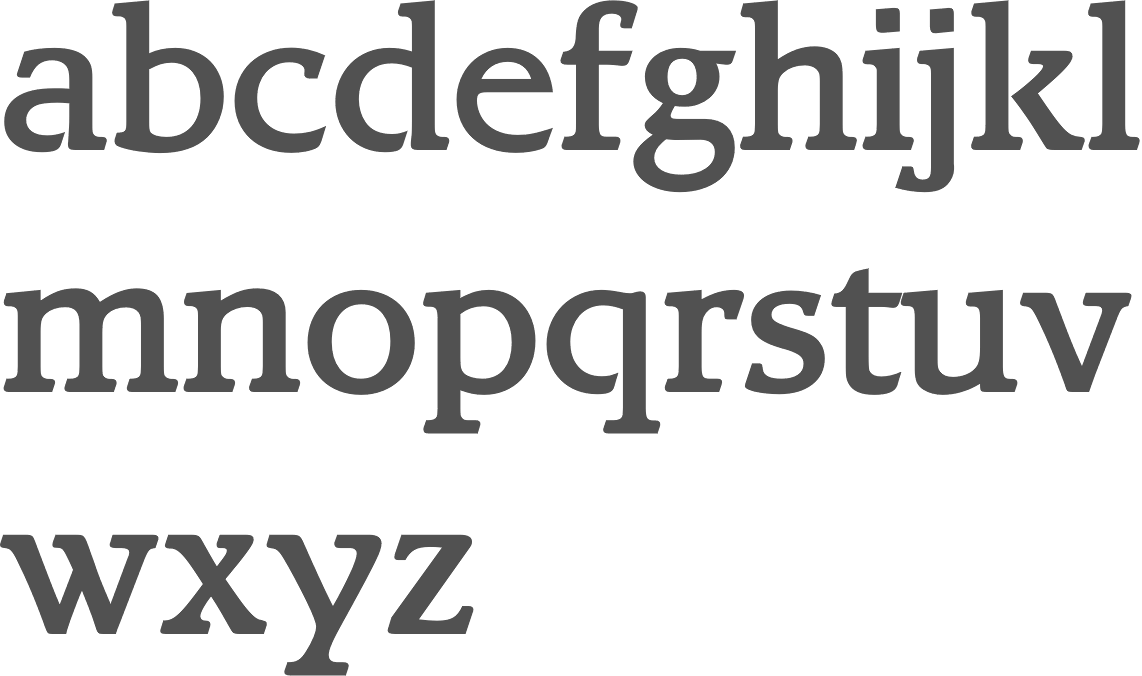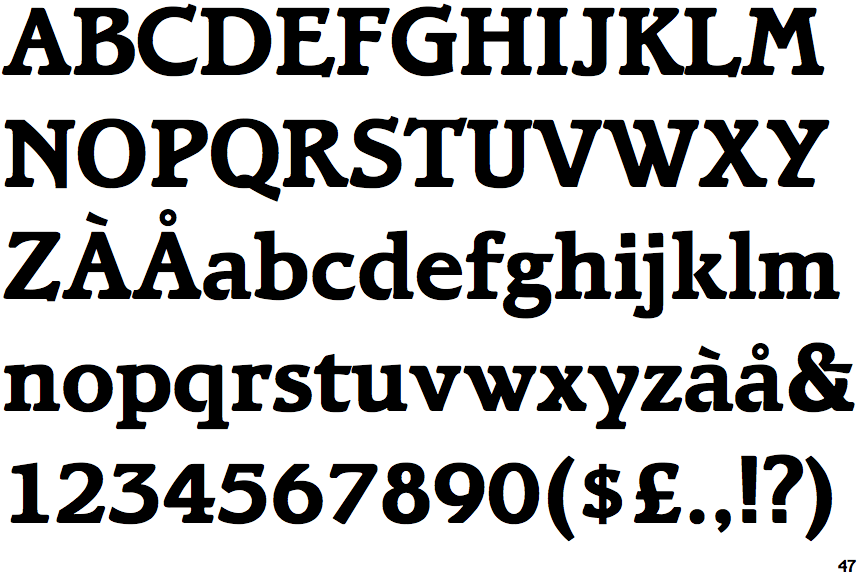
Bramley Font . Letraset bramley font, this bundle features strong,. Bramley is a modern slab serif typeface designed by alan meeks. $126.99 usd letraset bramley std extra. The bramley std medium font was designed by alan meeks. Letraset bramley std extra bold byitc. Bramley sh contains 4 styles and family. Complete family of 4 fonts: You can also visit the author website, clicking here: Download bramley std for free, view sample text, rating and more on fontsgeek.com View sample text, character map, user rating and review for. Bramley has carefully angled serifs to. Bramley sh font family was designed by alan meeks and published by scangraphic digital type collection. Complete family of 4 fonts:
You can also visit the author website, clicking here: The bramley std medium font was designed by alan meeks. Download bramley std for free, view sample text, rating and more on fontsgeek.com Letraset bramley font, this bundle features strong,. Bramley has carefully angled serifs to. Complete family of 4 fonts: Bramley sh font family was designed by alan meeks and published by scangraphic digital type collection. $126.99 usd letraset bramley std extra. Bramley is a modern slab serif typeface designed by alan meeks. Letraset bramley std extra bold byitc.
Bramley Font Bramley sh contains 4 styles and family. The bramley std medium font was designed by alan meeks. Complete family of 4 fonts: Letraset bramley font, this bundle features strong,. Bramley sh font family was designed by alan meeks and published by scangraphic digital type collection. Bramley is a modern slab serif typeface designed by alan meeks. Bramley has carefully angled serifs to. You can also visit the author website, clicking here: Letraset bramley std extra bold byitc. $126.99 usd letraset bramley std extra. Download bramley std for free, view sample text, rating and more on fontsgeek.com Complete family of 4 fonts: View sample text, character map, user rating and review for. Bramley sh contains 4 styles and family.
Retro fonts to take your design to the next level Graphic design fonts, Retro graphic design Bramley Font The bramley std medium font was designed by alan meeks. Bramley sh font family was designed by alan meeks and published by scangraphic digital type collection. Download bramley std for free, view sample text, rating and more on fontsgeek.com Complete family of 4 fonts: Bramley has carefully angled serifs to. $126.99 usd letraset bramley std extra. Letraset bramley font, this. Bramley Font.
Bramley Extra Bold Fonts Bramley Font You can also visit the author website, clicking here: Complete family of 4 fonts: Bramley sh font family was designed by alan meeks and published by scangraphic digital type collection. Letraset bramley font, this bundle features strong,. Complete family of 4 fonts: View sample text, character map, user rating and review for. $126.99 usd letraset bramley std extra. Letraset bramley. Bramley Font.
Bramley & Broom Cathy Bramley Font View sample text, character map, user rating and review for. $126.99 usd letraset bramley std extra. Bramley sh font family was designed by alan meeks and published by scangraphic digital type collection. Complete family of 4 fonts: Bramley sh contains 4 styles and family. You can also visit the author website, clicking here: Letraset bramley std extra bold byitc. Bramley. Bramley Font.